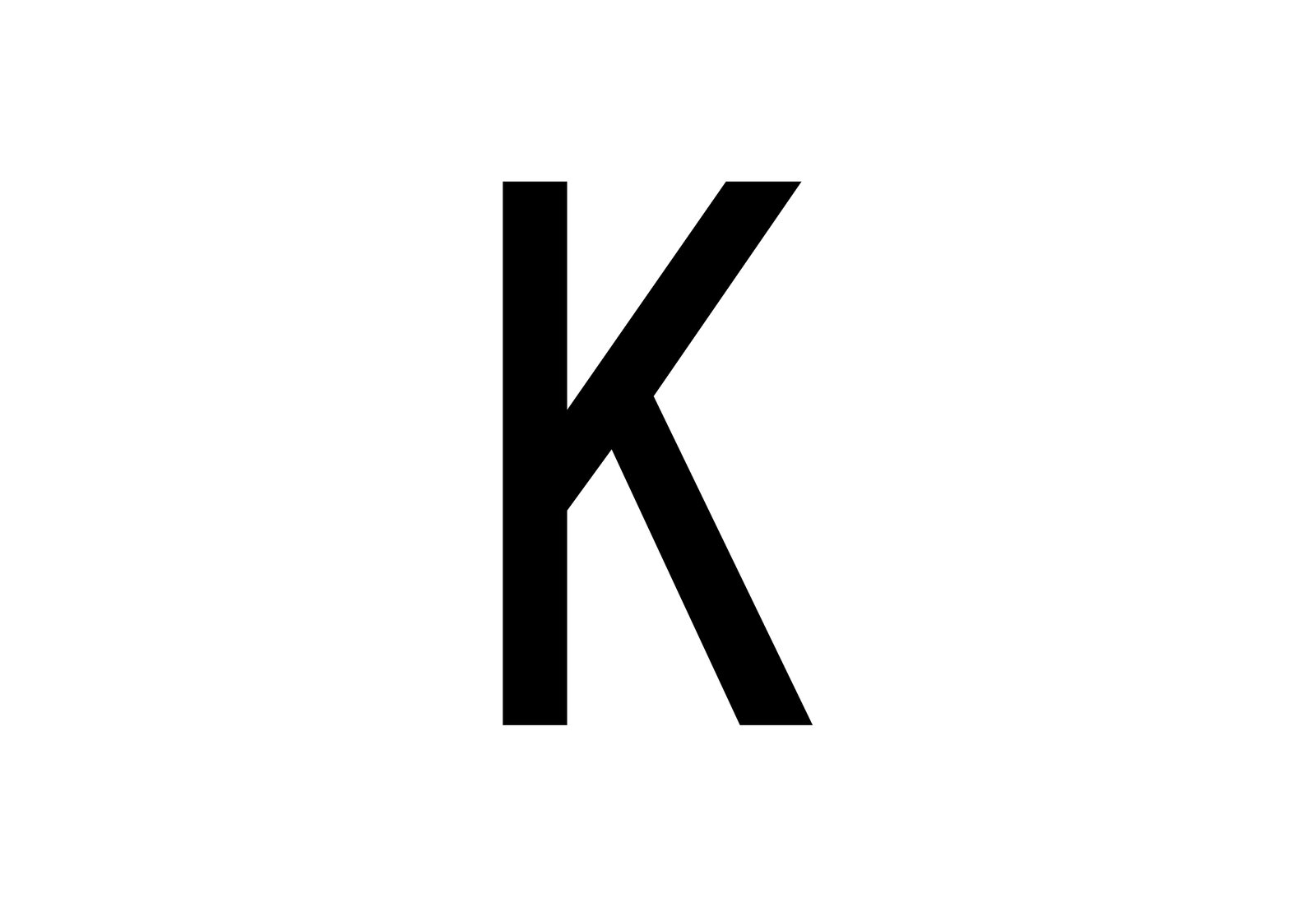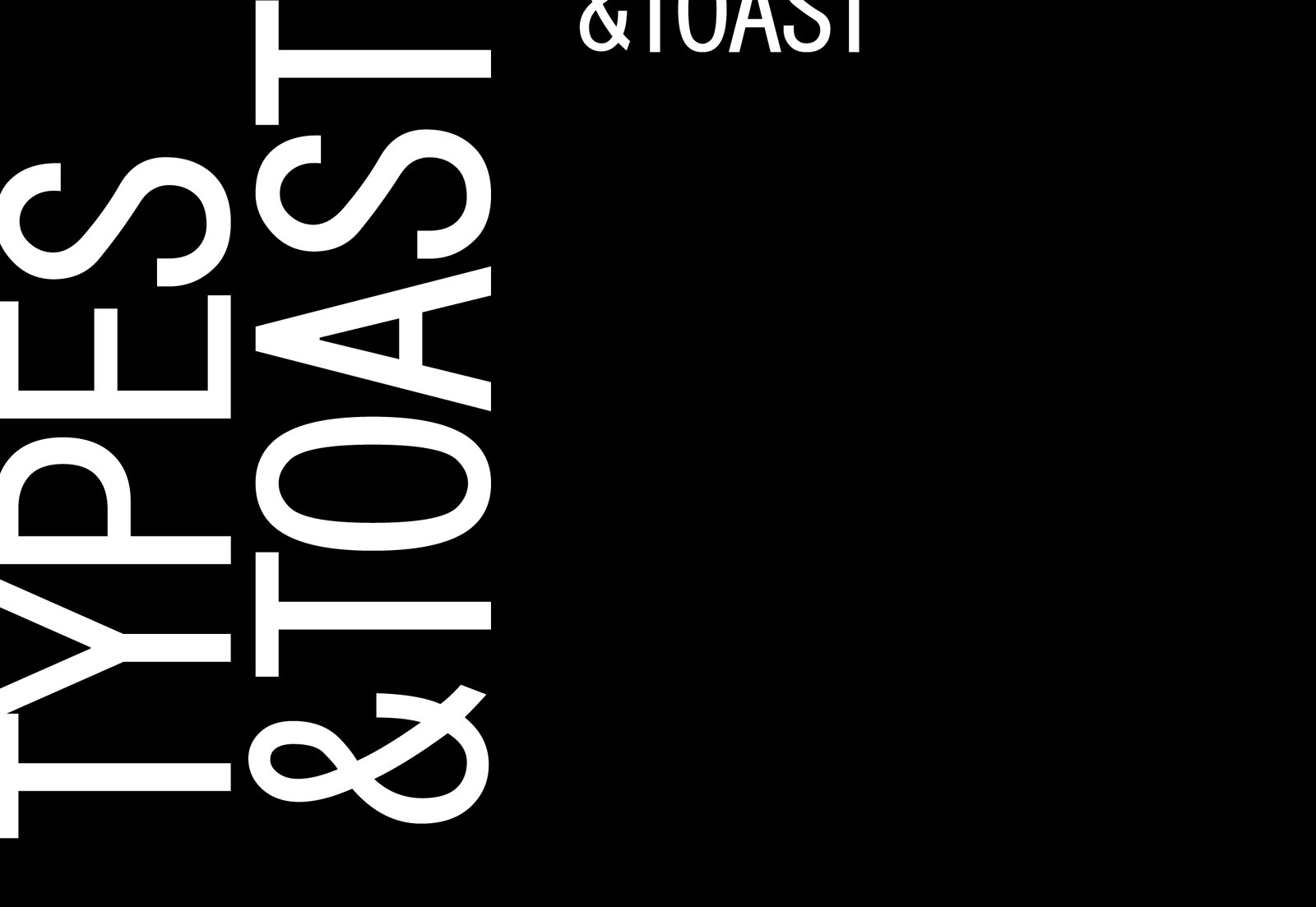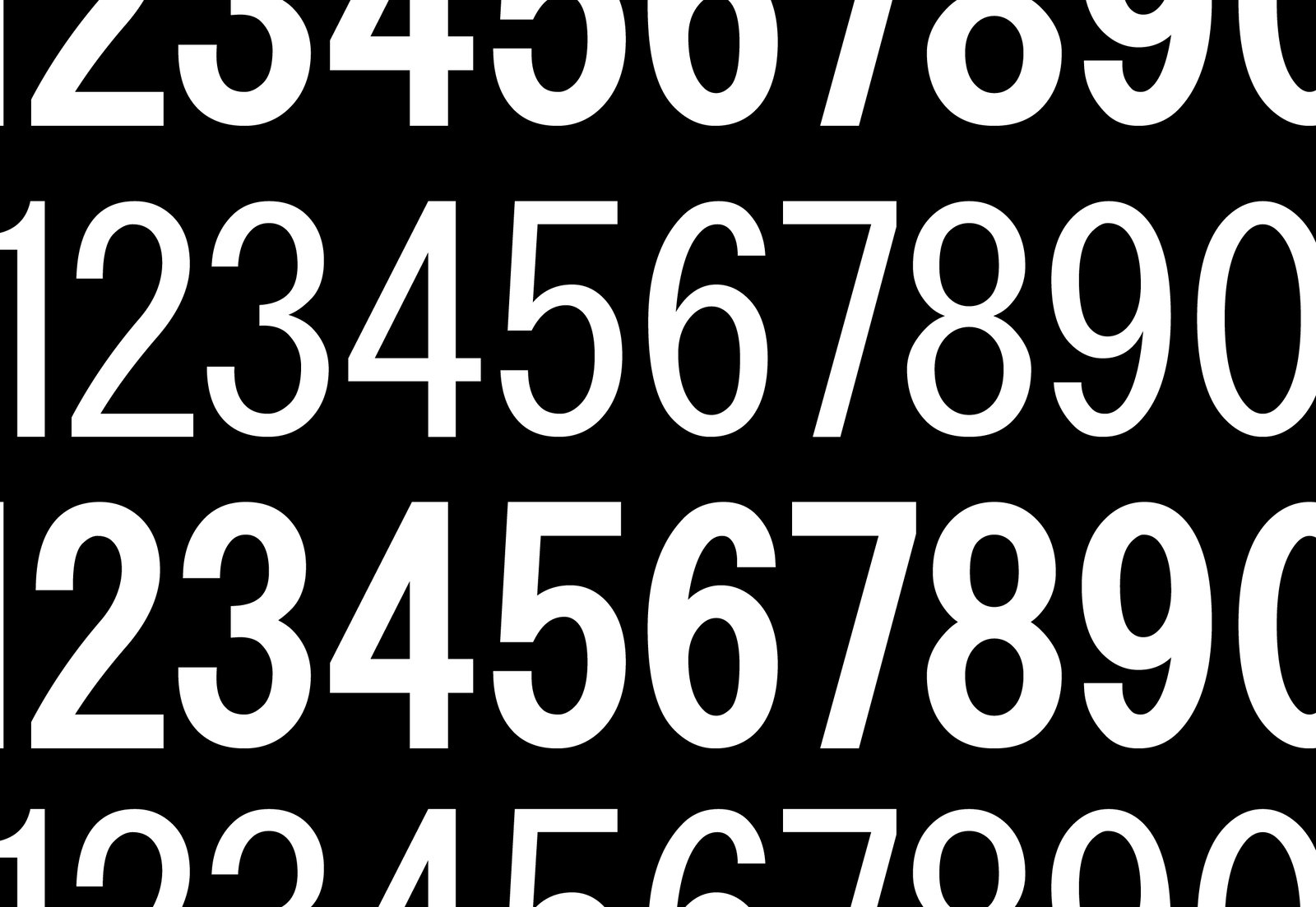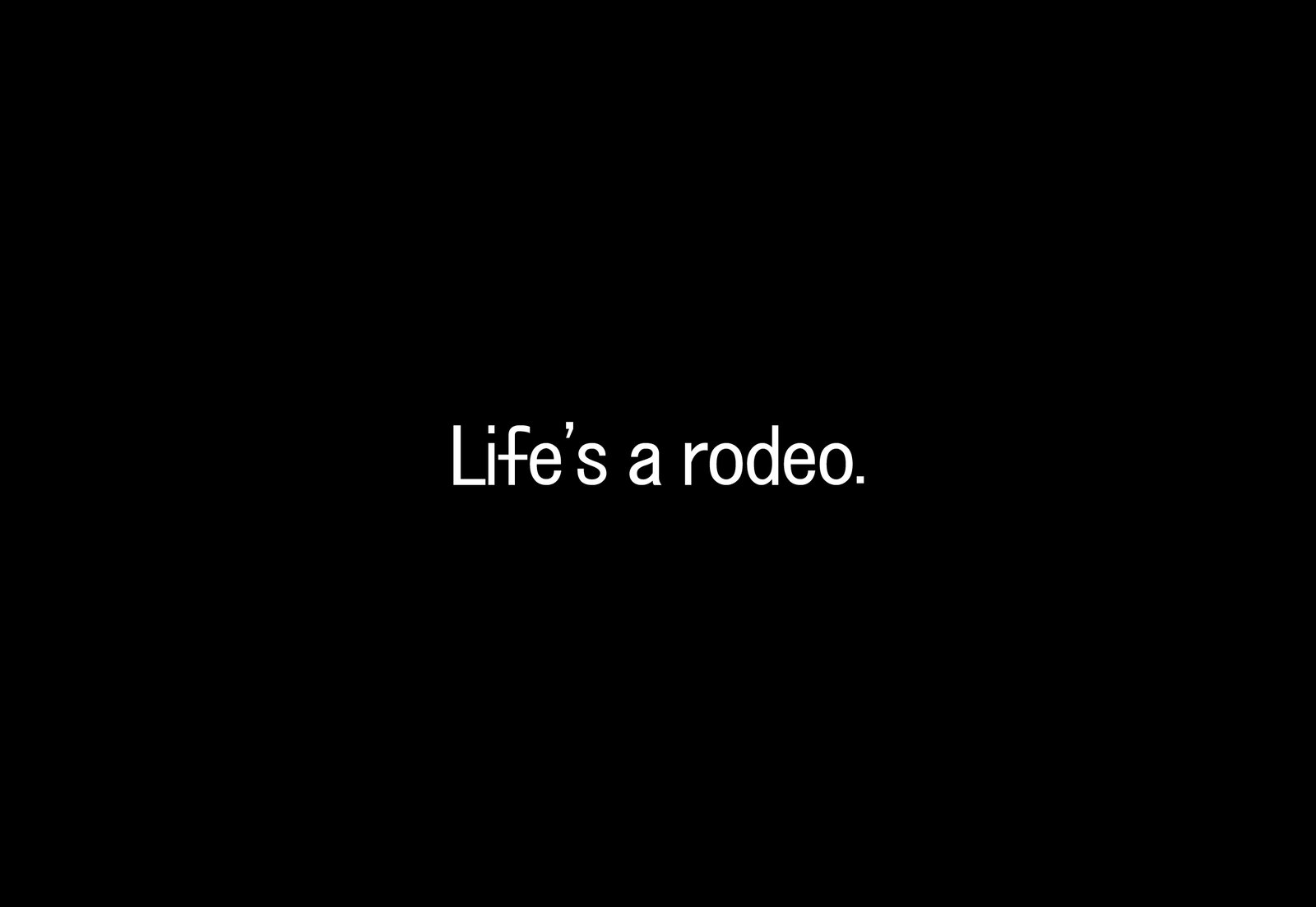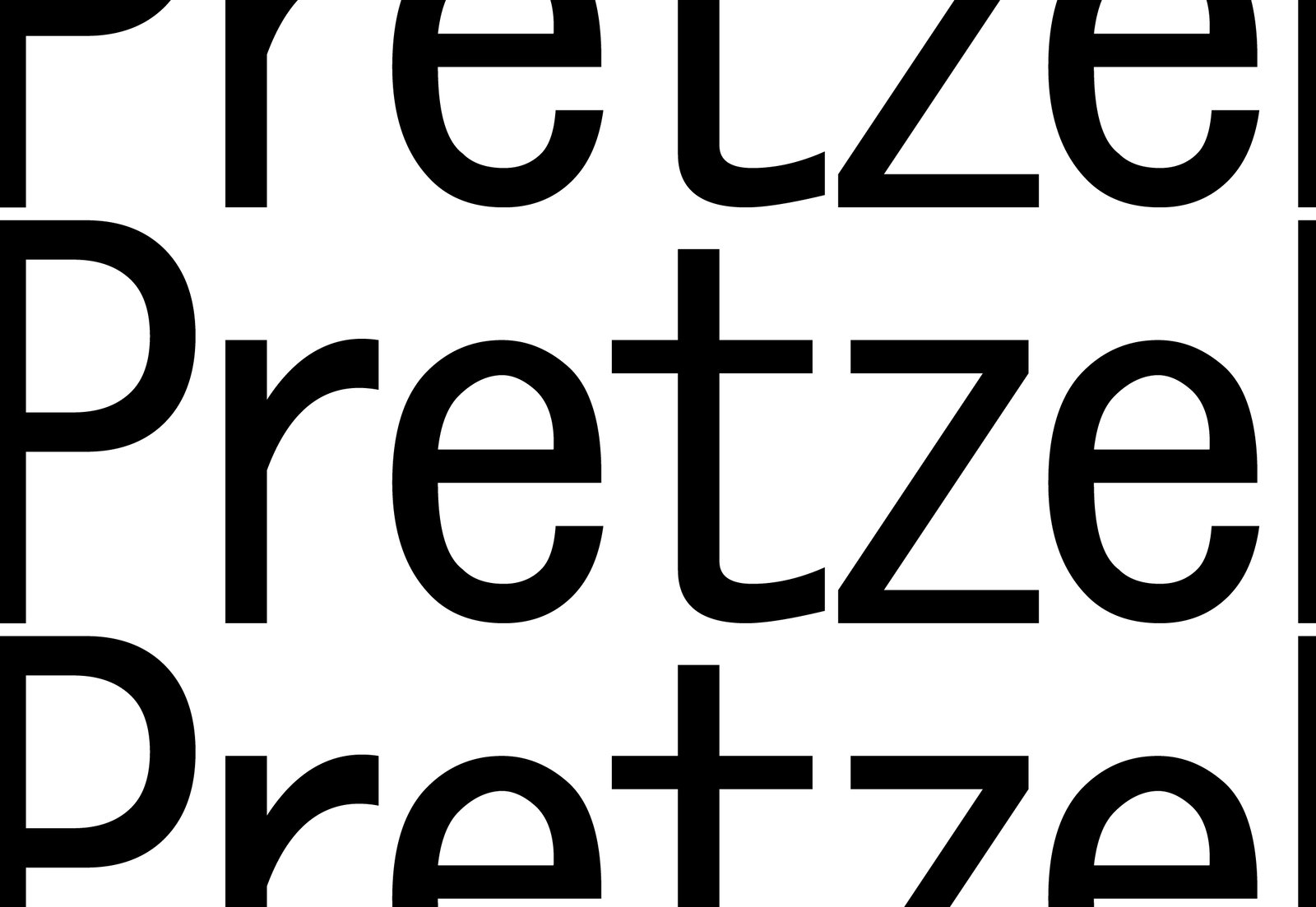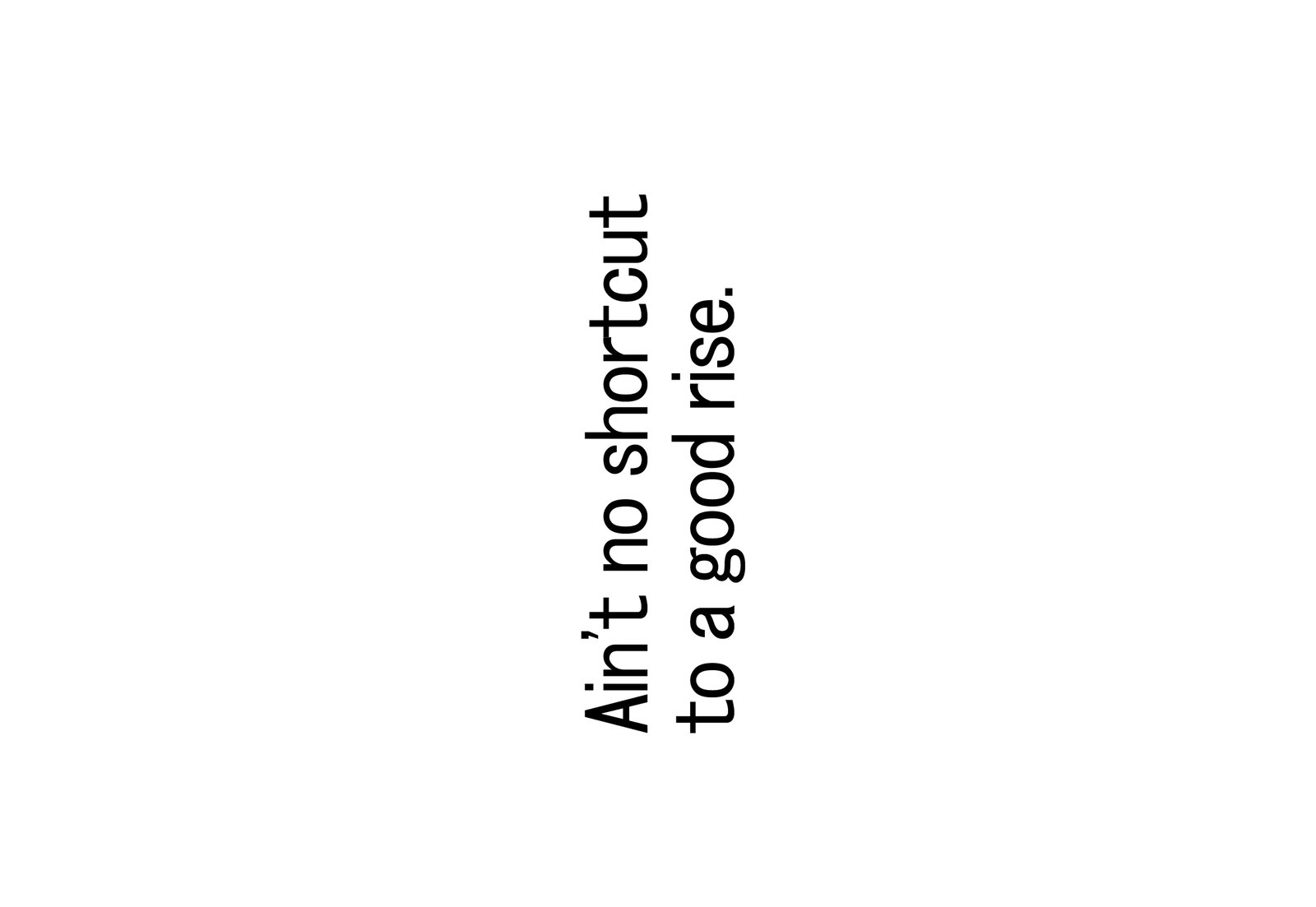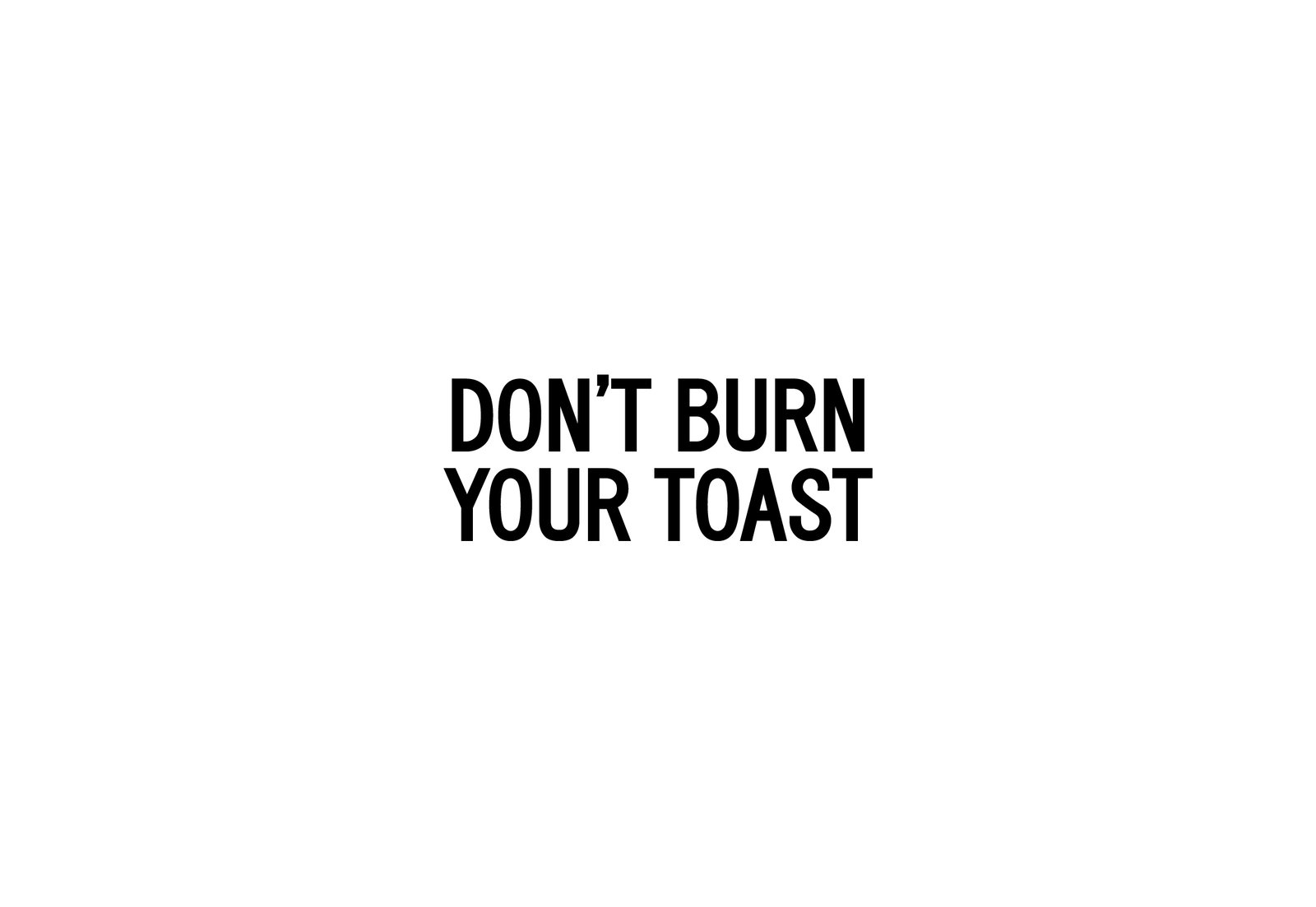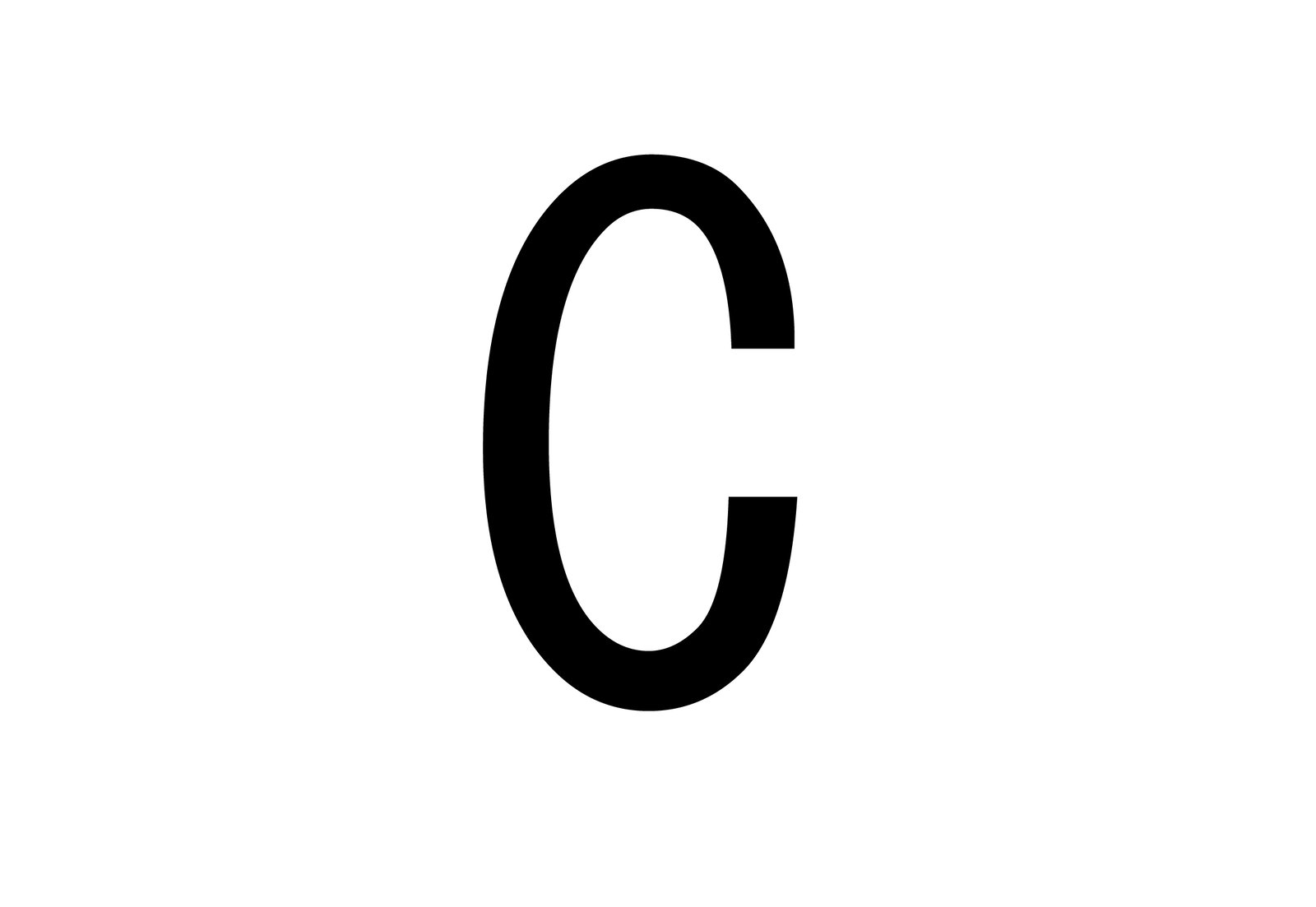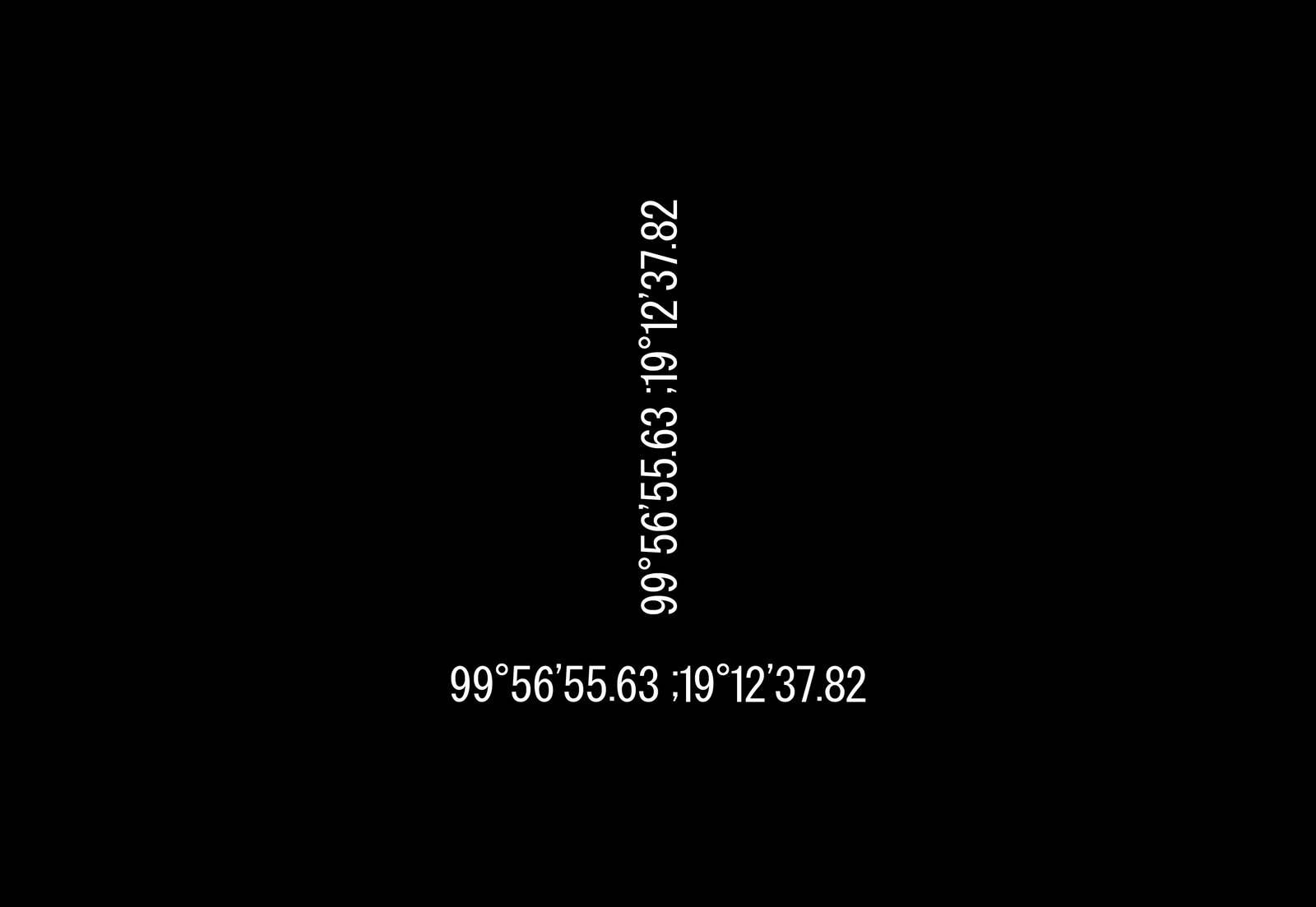
Pretzel Sans-Serif Font
Meet Pretzel, a modern sans-serif font redefines simplicity and strength with a playful twist. Inspired by clean, bold lines and a subtle monospaced aesthetic, Pretzel strikes the perfect balance between contemporary design and approachable charm.
This bold, confident, and versatile typeface is an excellent choice for branding and editorial layouts. With its modern appeal and distinct character, Pretzel is ready to bring your creative projects to life, whether you’re crafting eye-catching headlines or sleek body text.
Create strong, unforgettable logos and brand materials. For editorial projects, Deliver stylish, cohesive layouts that stand out. Designed to be bold, modern, and utterly unique, Pretzel is the perfect companion for creatives who aren’t afraid to make a statement.